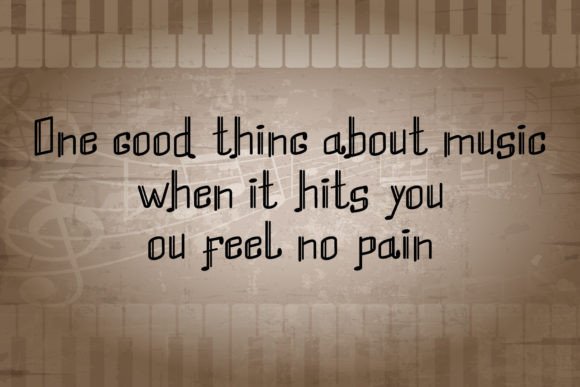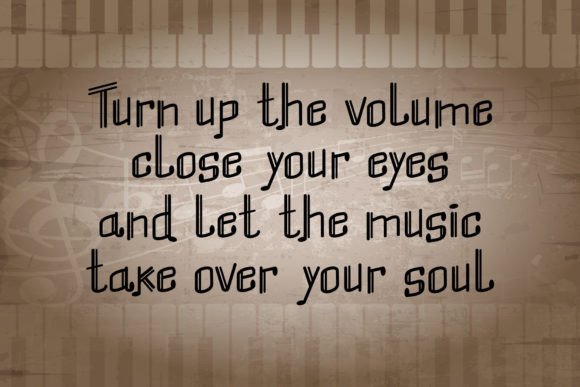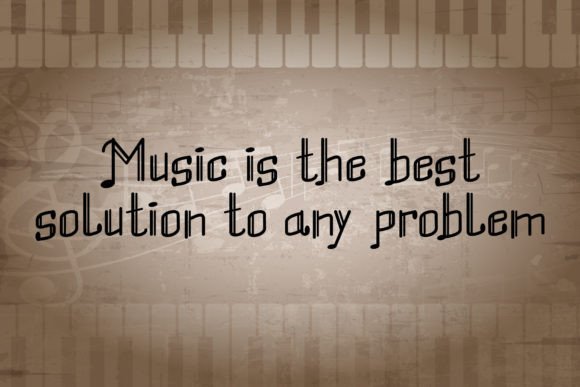
Musical Tone Font
Musical Tone is a elegant and classic music note themed font. It is suitable for winter and kids’-related products, t-shirts, stickers, cover books, children’s books, social media posts, and much more!